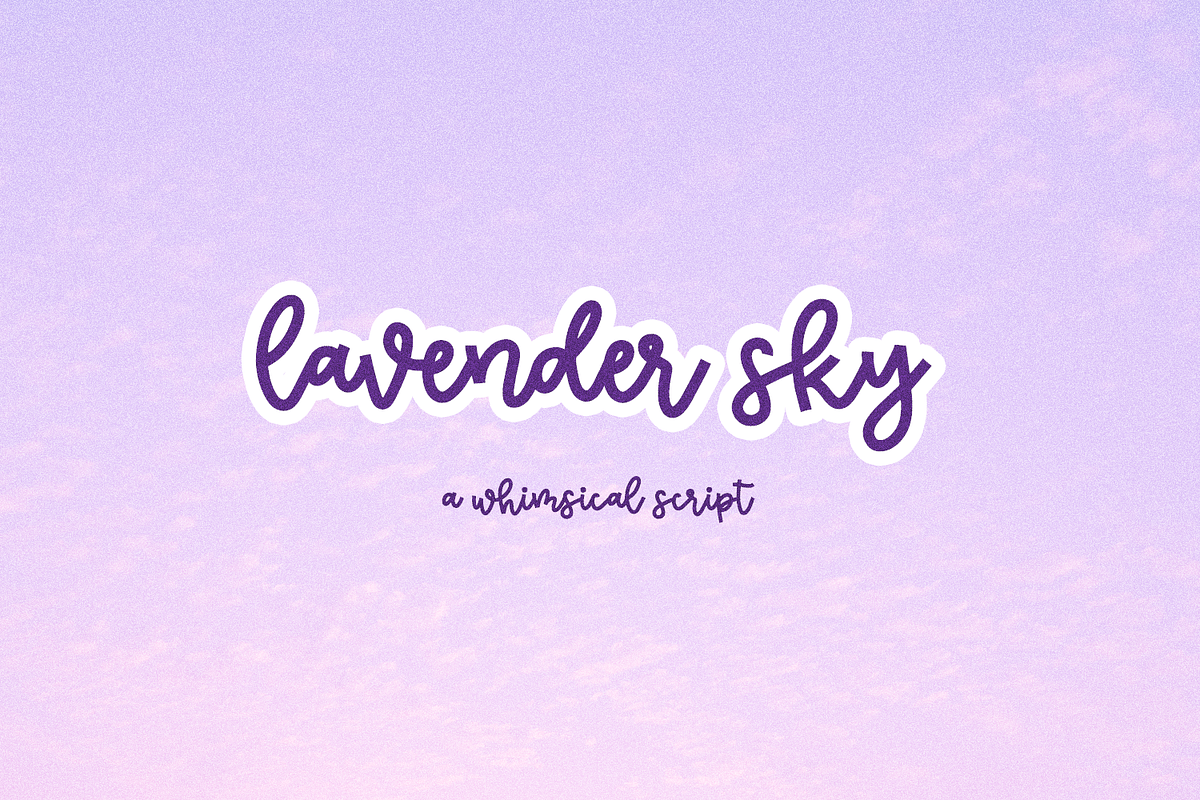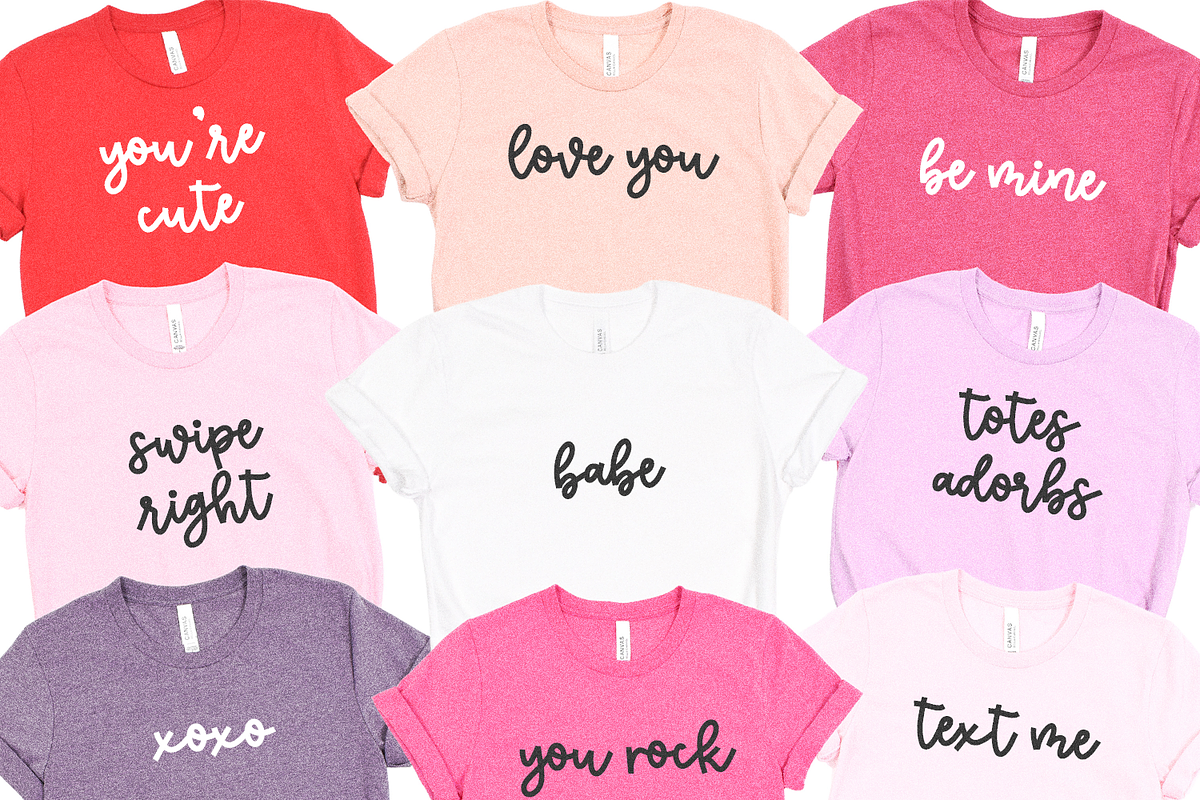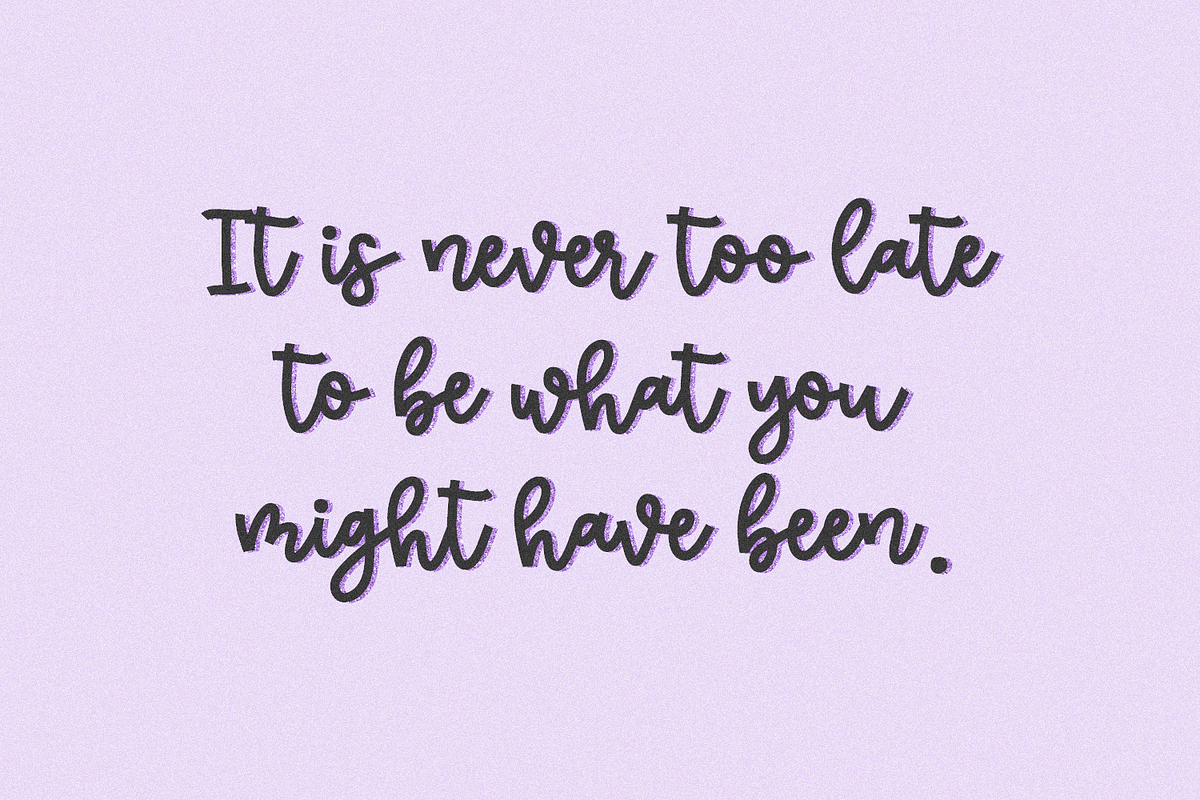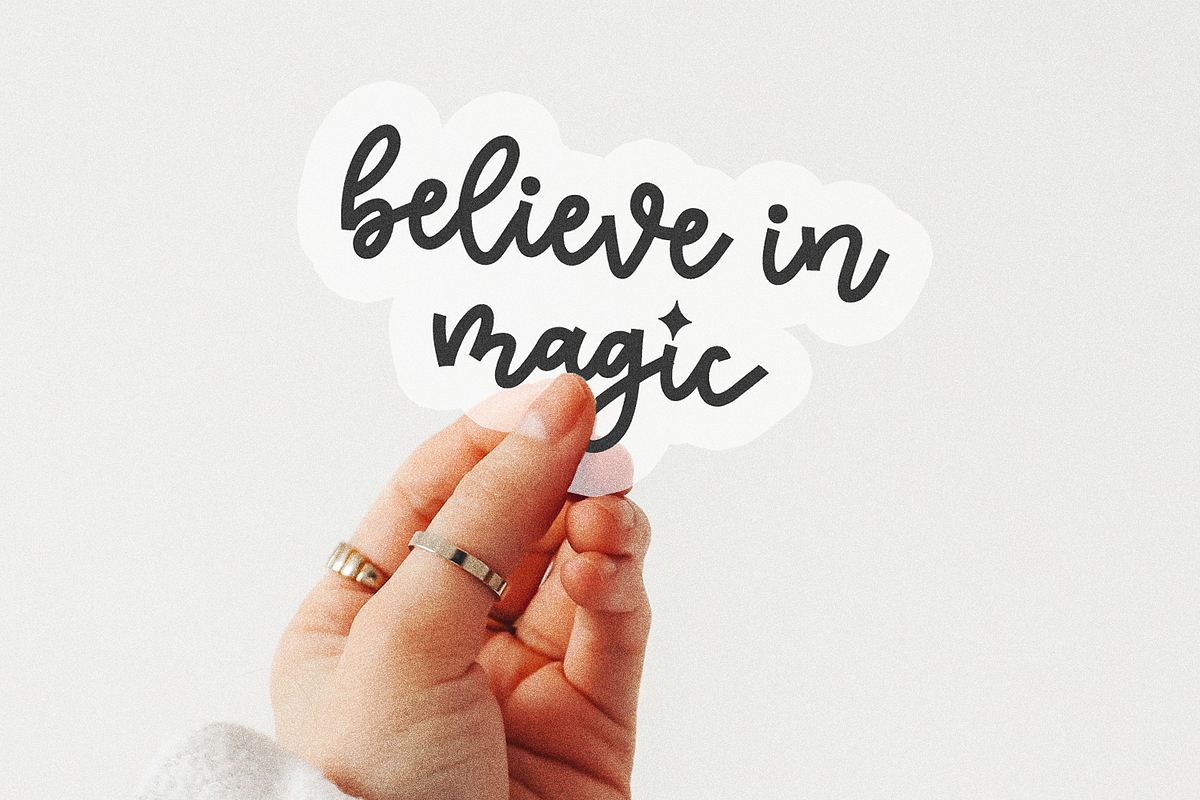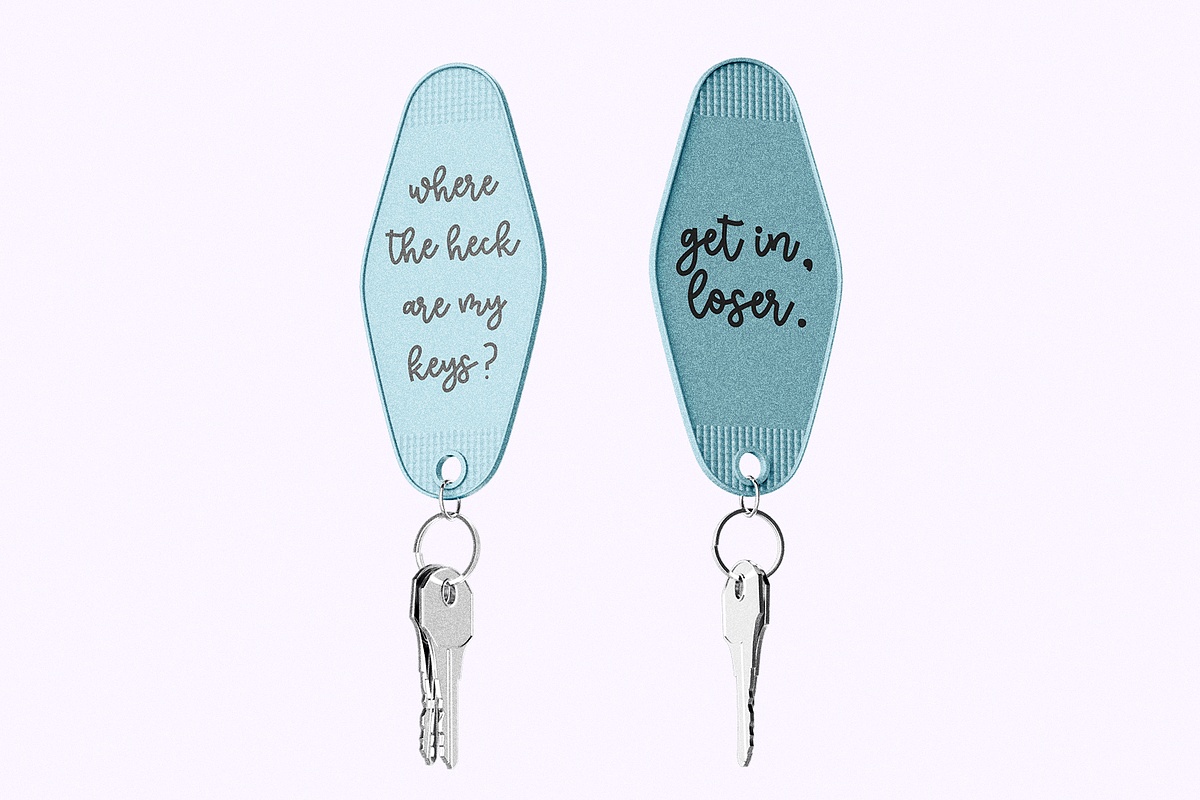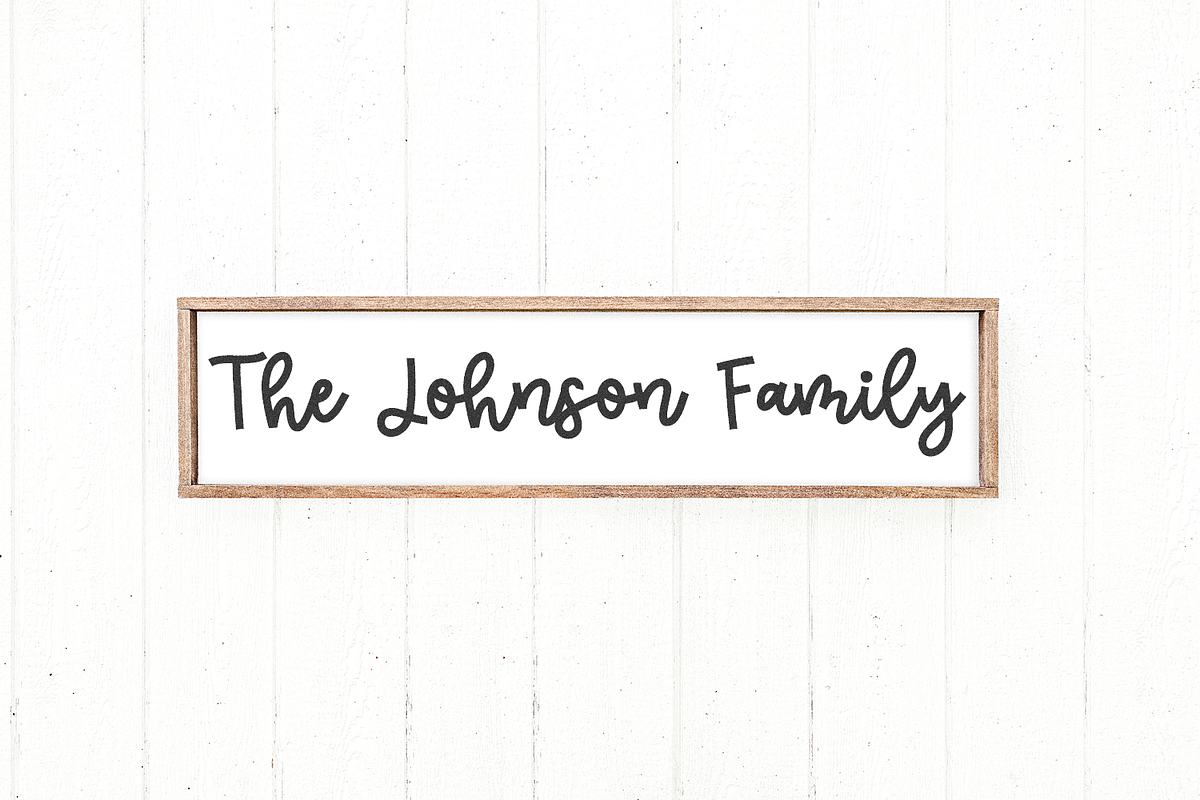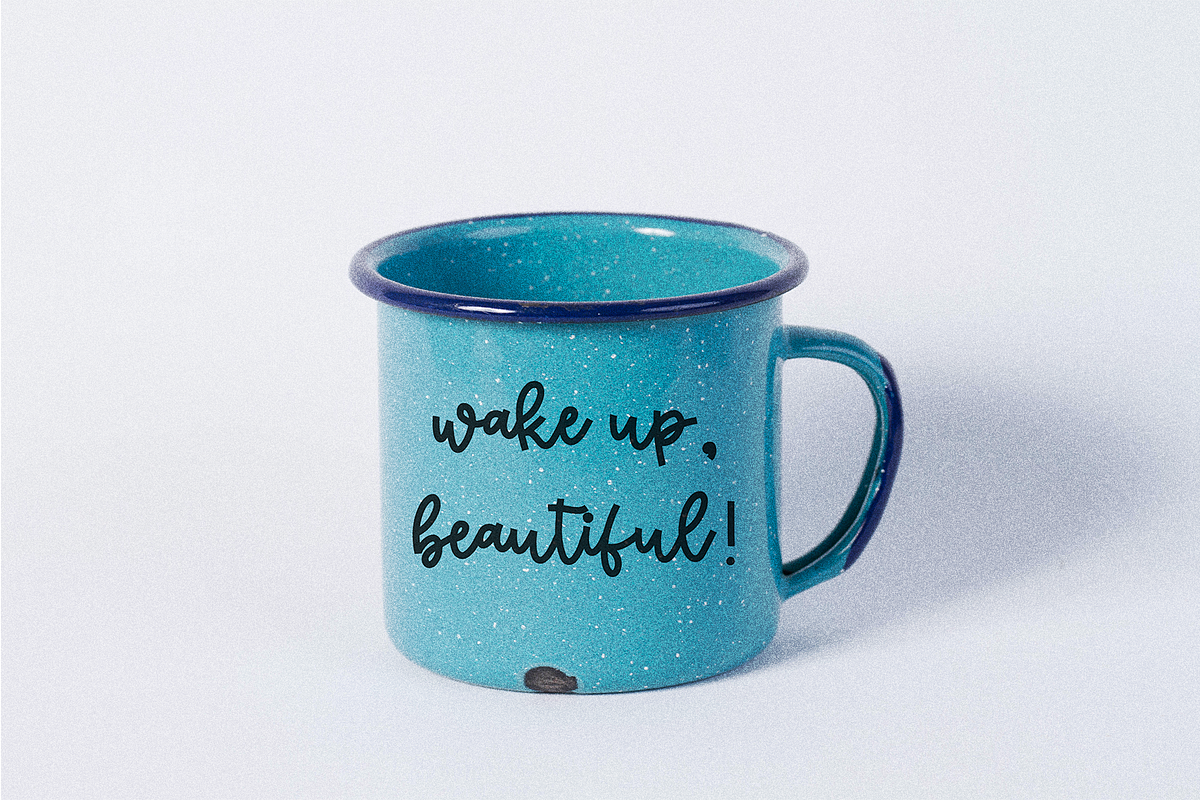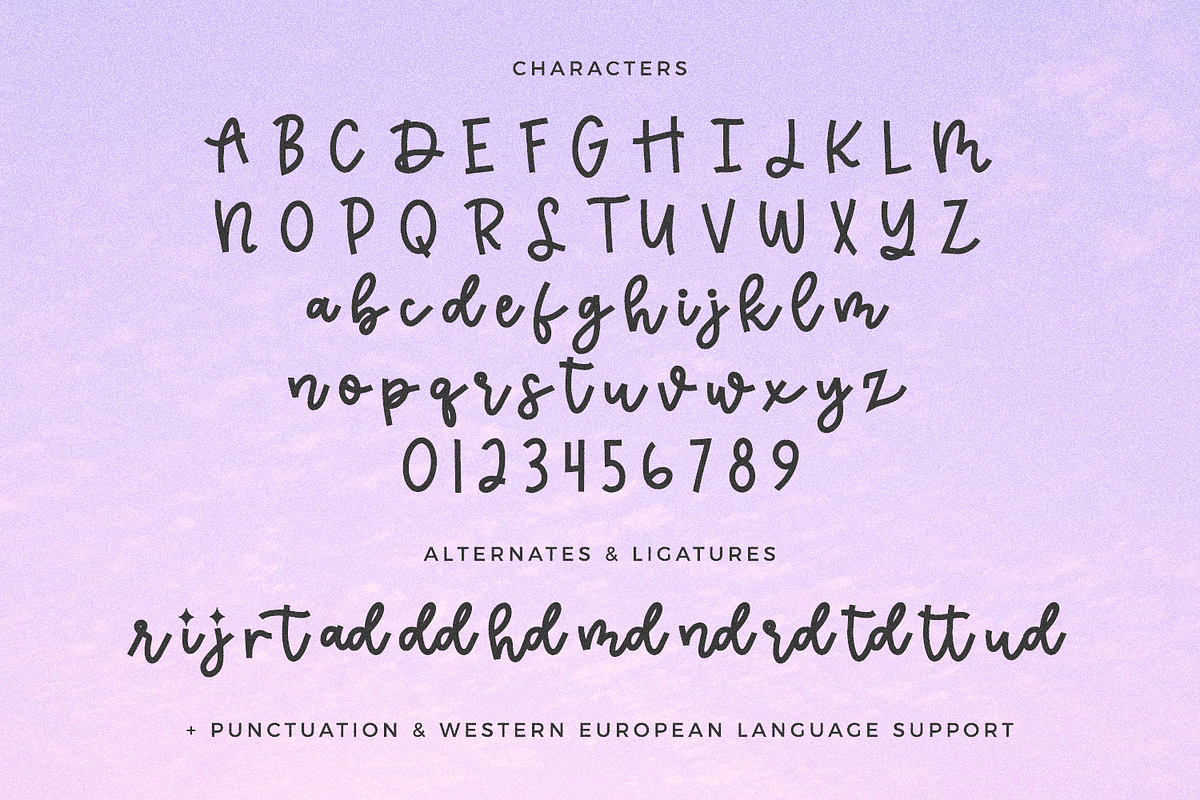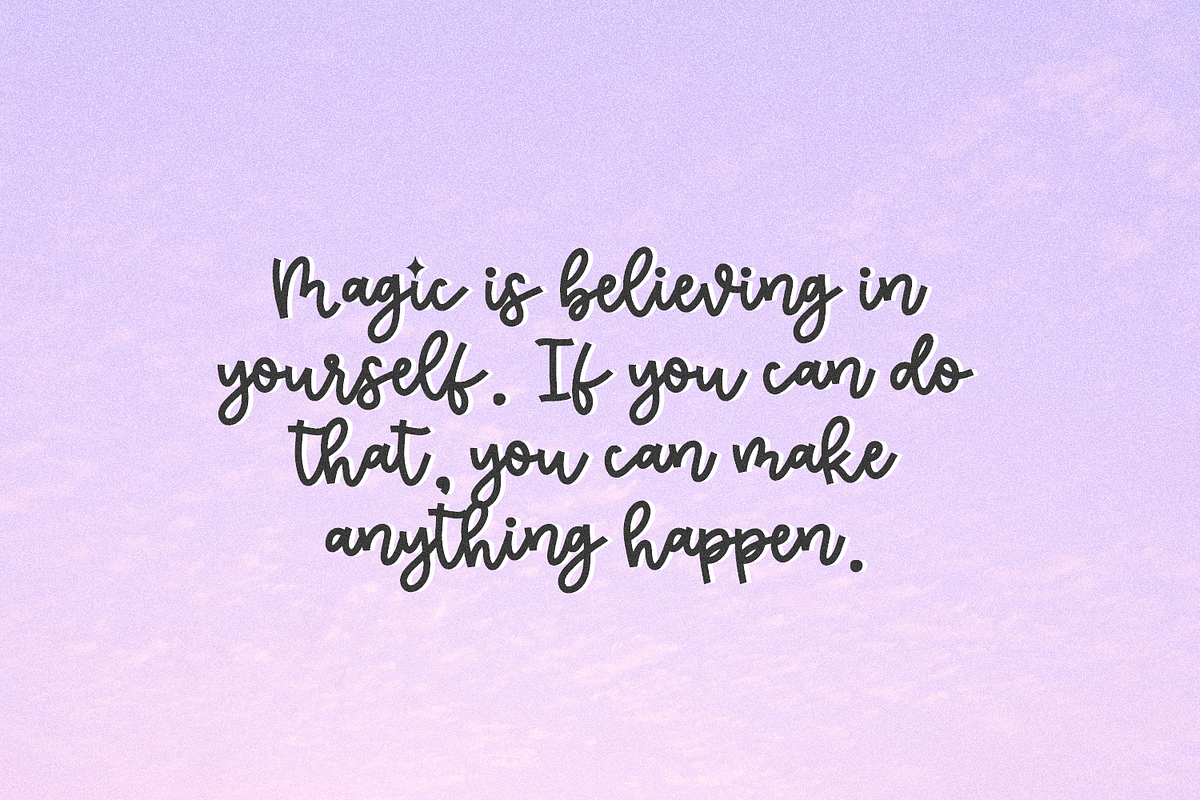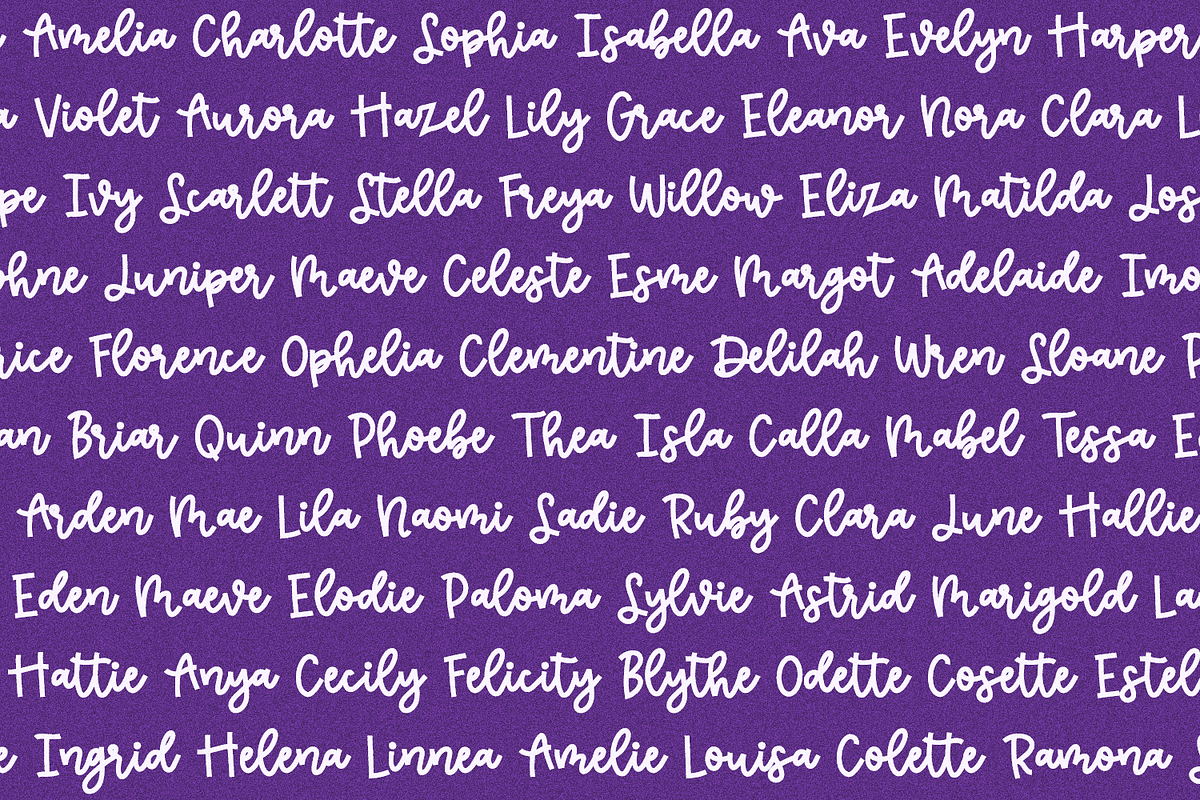
Lavender Sky Script
Lavender Sky Script is a modern calligraphy font. Lavender Sky features thick, squared off lines and is fun & bouncy. This font is perfect for logos & branding, greeting cards, painted banners, digital planners, note-taking apps, Canva, Cricut projects, Silhouette projects, designing SVG files, laser cutting projects, & more.
Lavender Sky Script includes:
- full upper + lowercase characters
- numbers + punctuation
- 5 alternates - i, j, r, r, t
- 9 ligatures - ad, dd, hr, md, nd, rd, td, tt, ud